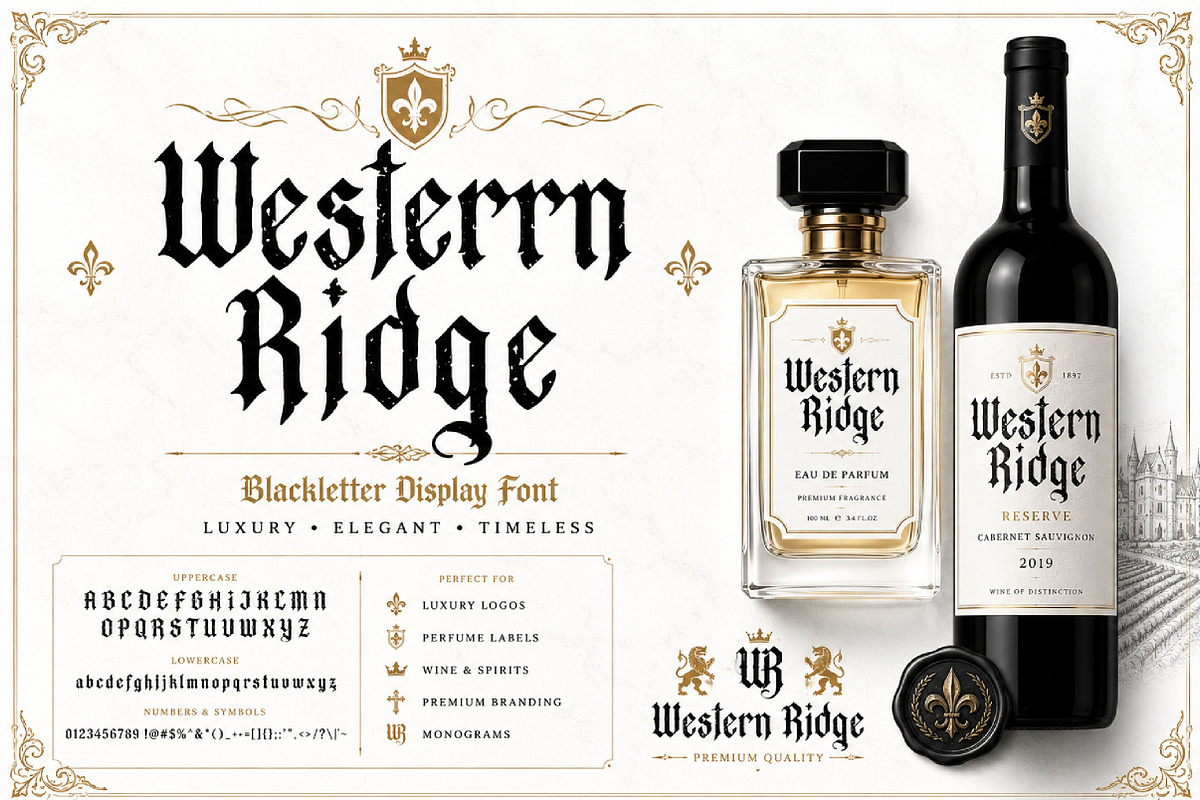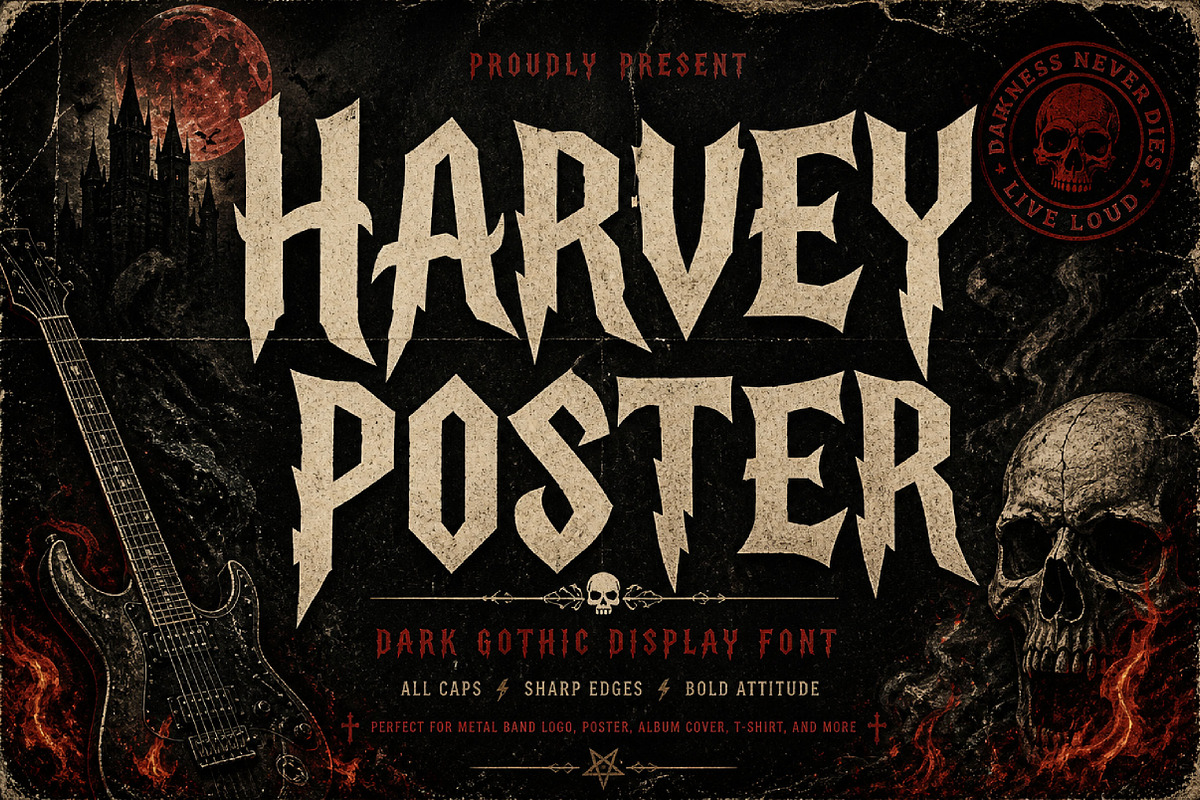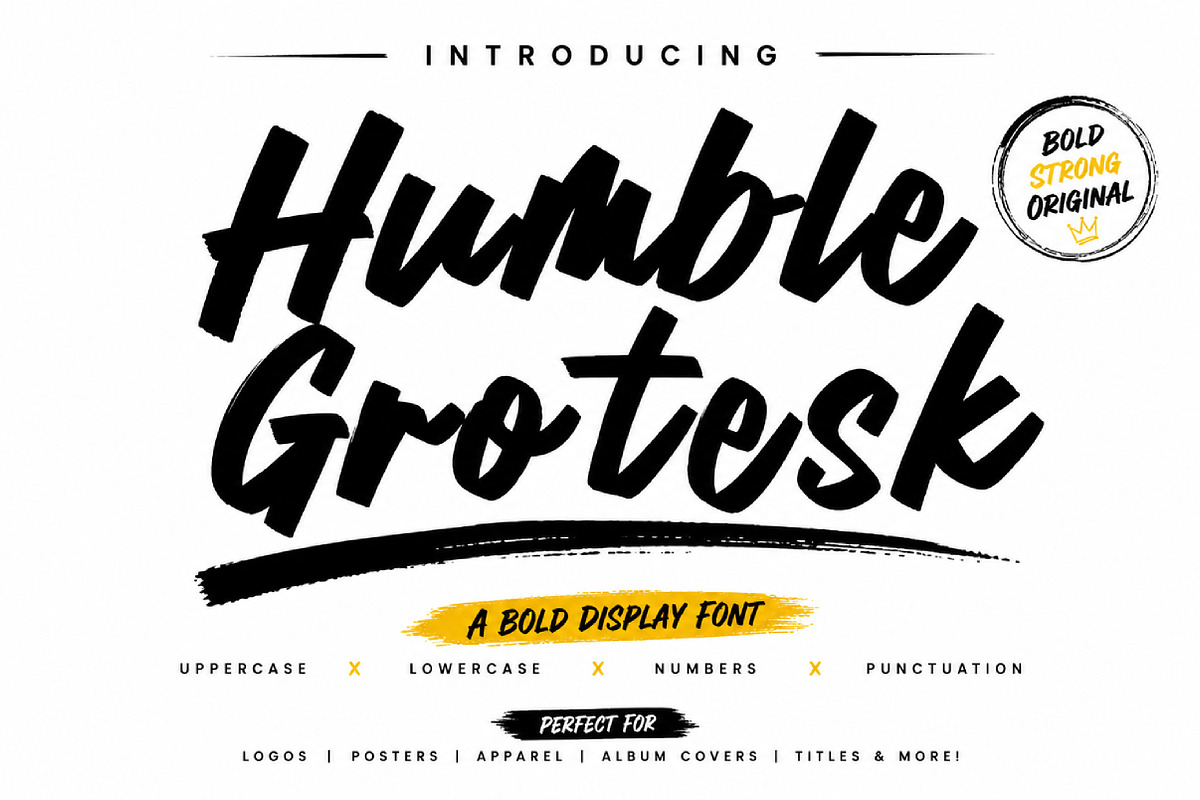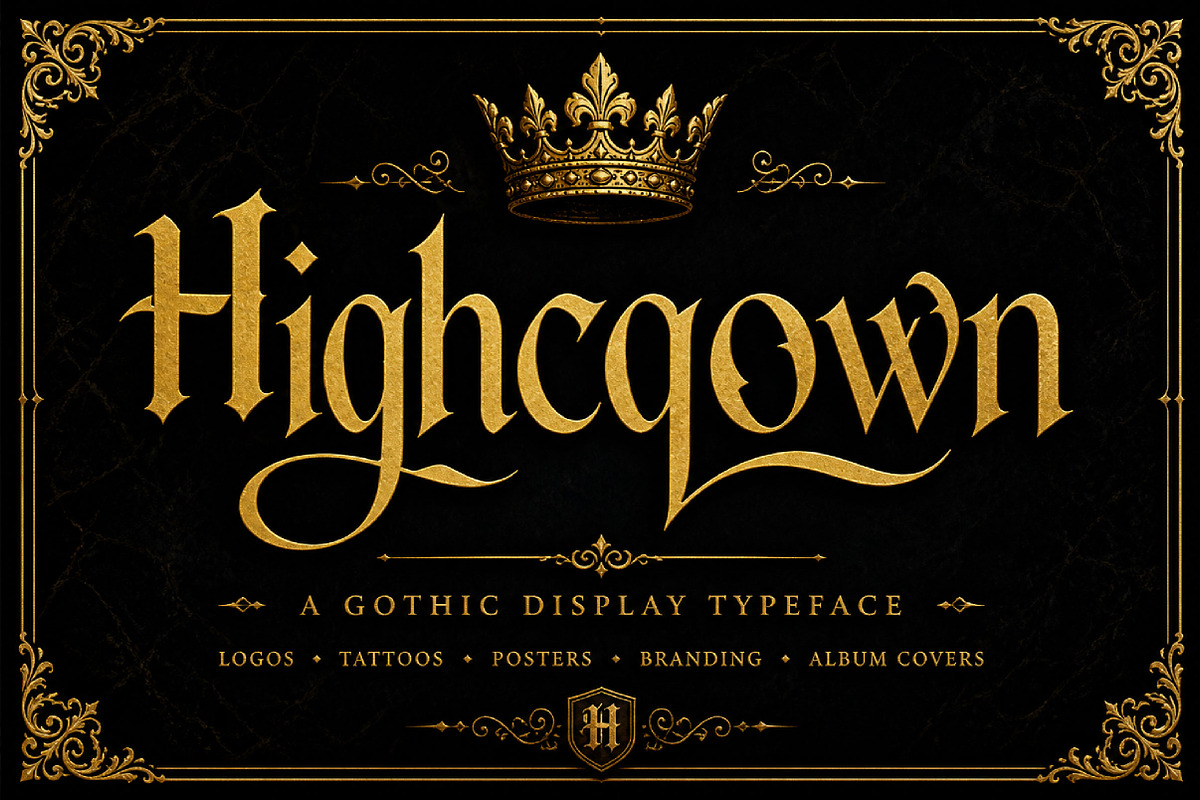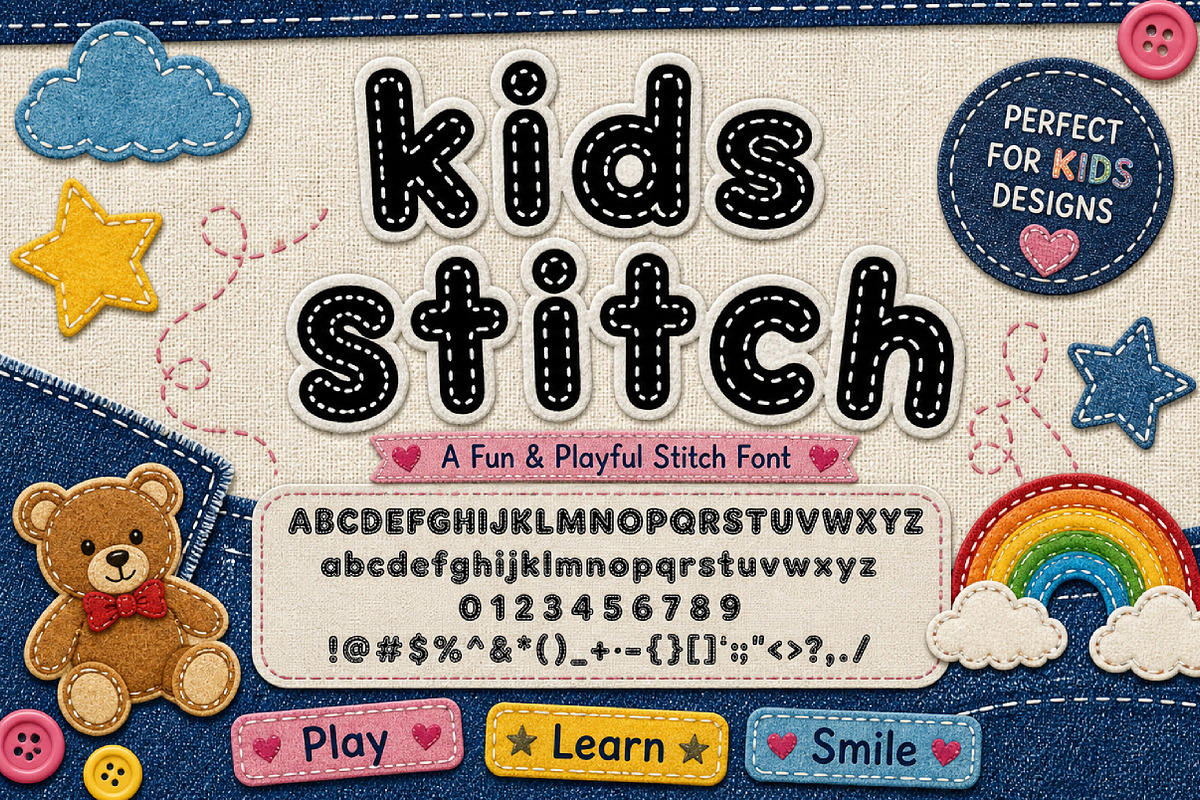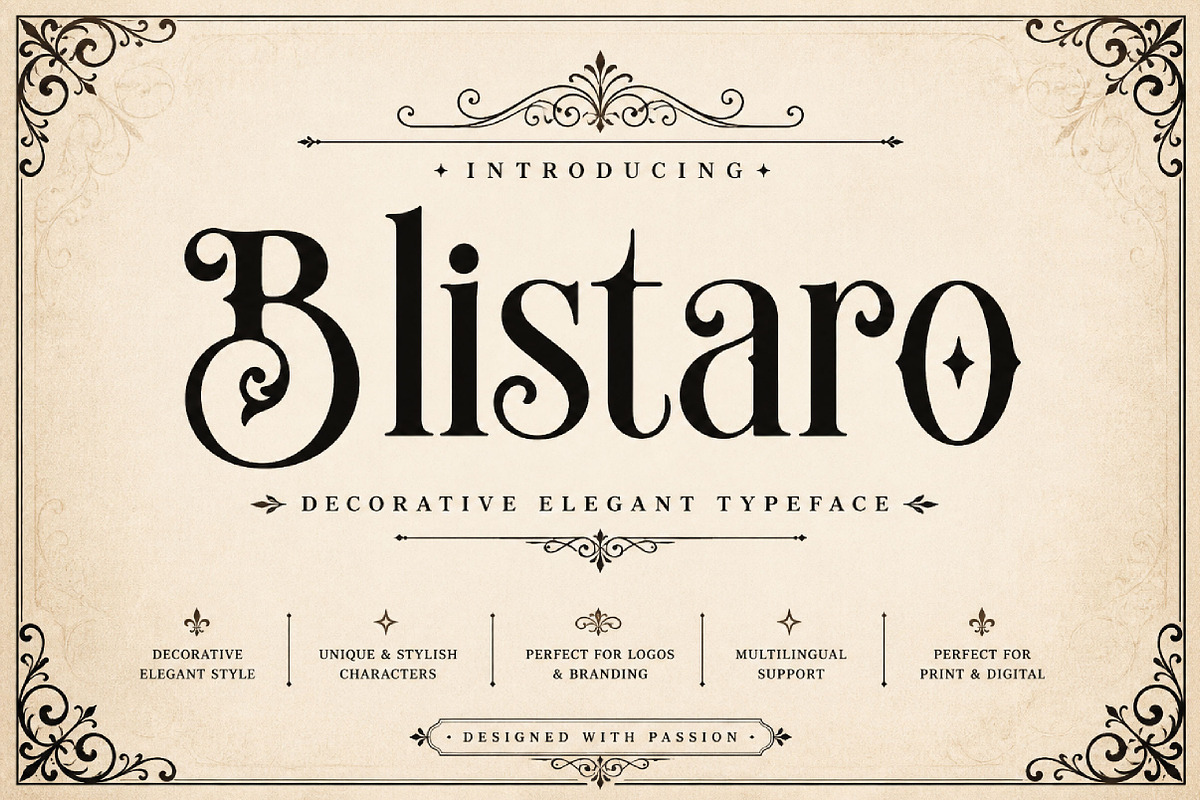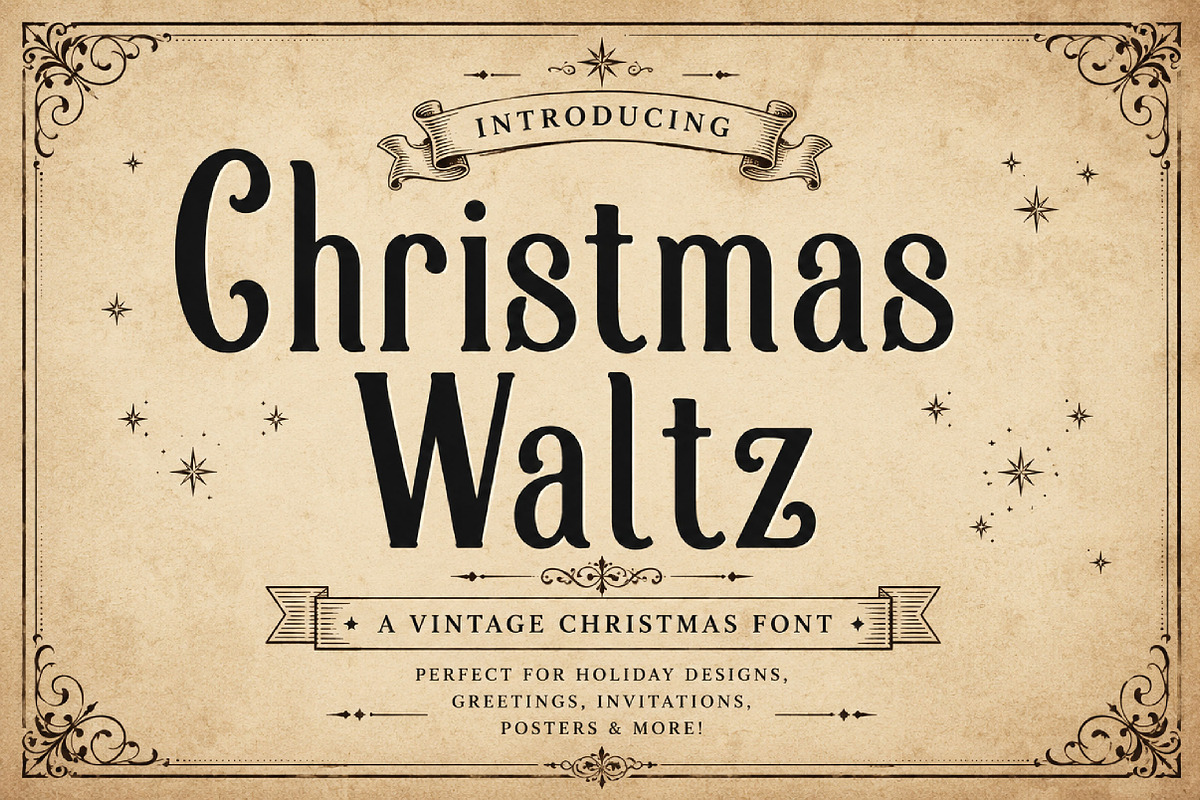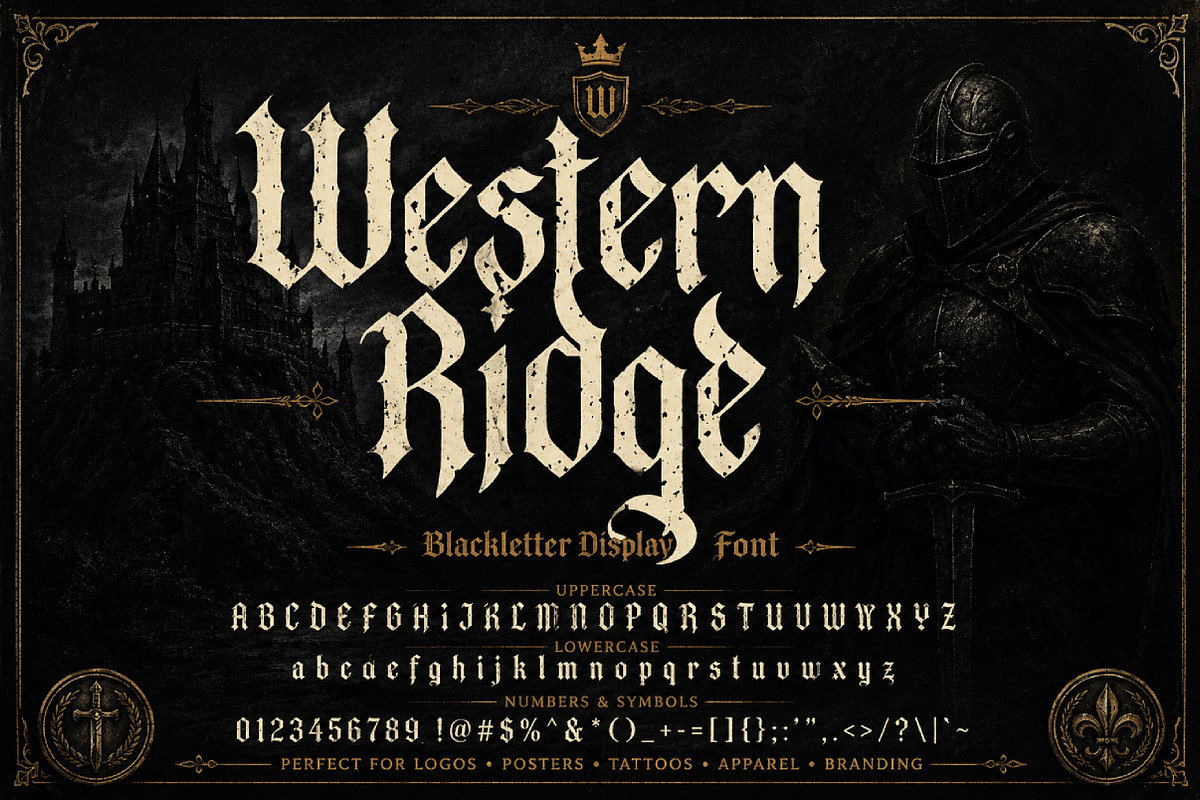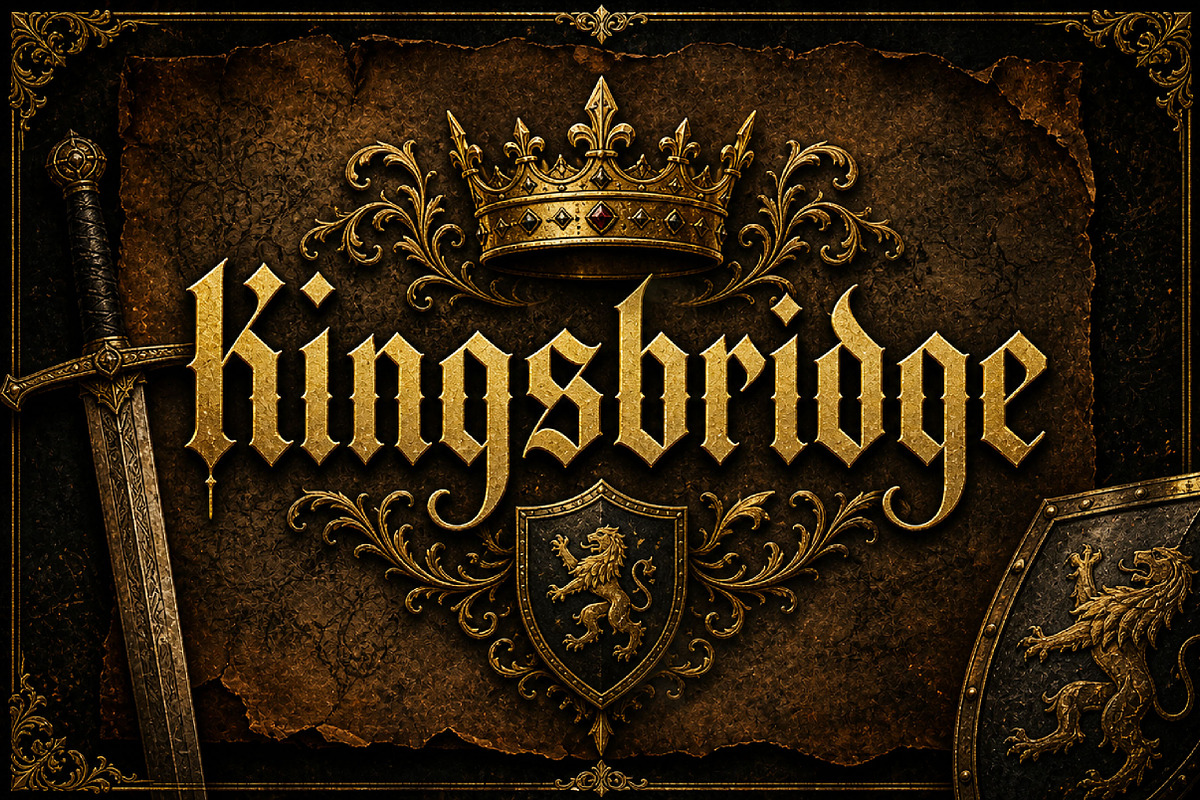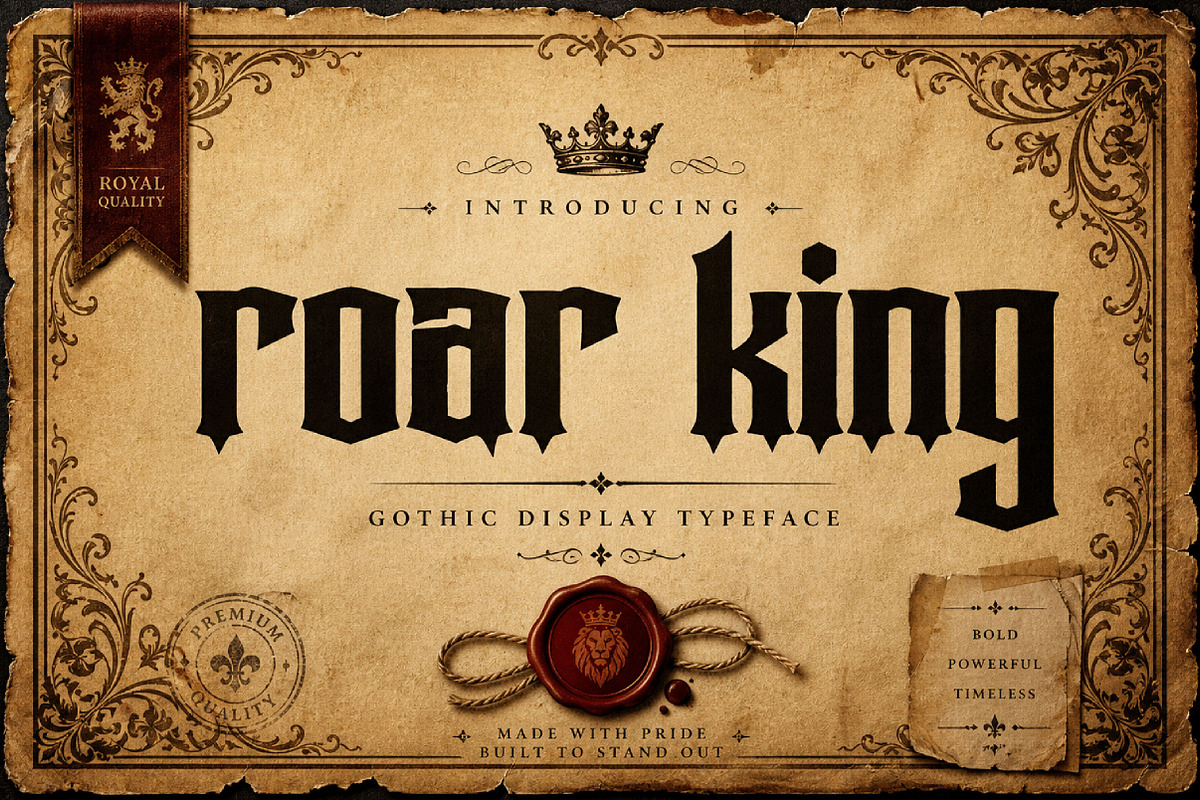
Modern Blackletter Mega Fonts Bundle
Elevate your creative projects with the Modern Blackletter Mega Fonts Bundle, a carefully curated collection of 30+ premium blackletter, gothic, vintage, medieval, western, decorative, and display fonts.
This versatile font bundle includes a wide range of unique styles, from elegant gothic lettering and medieval-inspired typefaces to bold western and vintage display fonts. Whether you're designing logos, branding materials, apparel graphics, posters, book covers, social media content, packaging, invitations, tattoos, merchandise, or gaming projects, this collection provides endless creative possibilities.
Each font has its own distinct personality, allowing designers, entrepreneurs, crafters, and content creators to create eye-catching and professional designs with ease.
✔ Blackletter Fonts
✔ Gothic Fonts
✔ Medieval Fonts
✔ Vintage Fonts
✔ Western Fonts
✔ Decorative Display Fonts
✔ Logo Ready Typography
Featured Font Styles
Amber Star
Christmas Waltz
Scarlet Crown
Beardley
Humble Grotesk
Vintage Super
Black Valor
Highcrown
Roar King
Blistaro
Kingsbridge
Western Ridge
Harvey Poster
Thunder Hunter
Whimsy Bright
Bring timeless gothic elegance and bold display typography to your next creative project with this exclusive font collection.